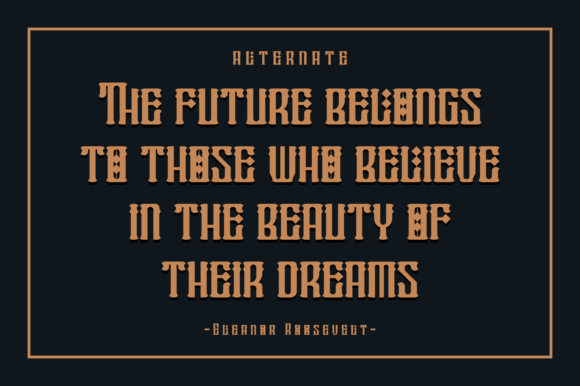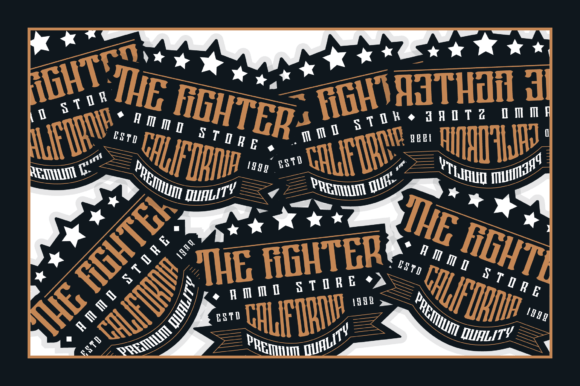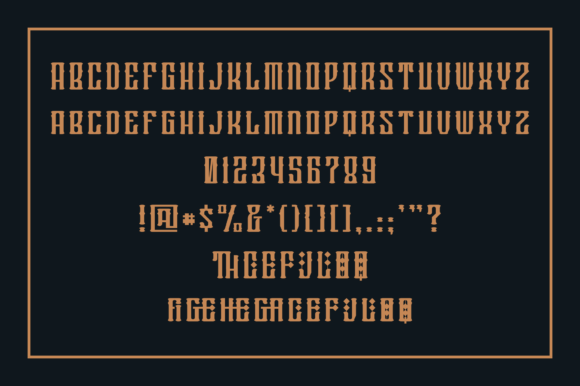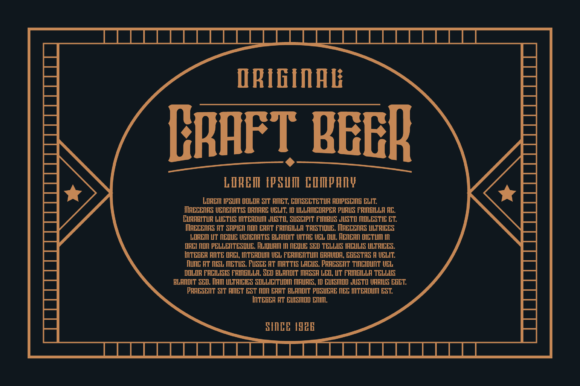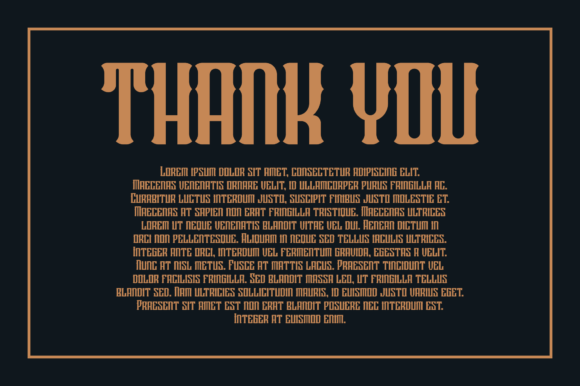
Introduction to Ransack Font
Have you ever been in the middle of a creative project, pouring your heart and soul into it, only to realize that the perfect font is missing to bring it all together? That’s where the Ransack Font comes in – a game-changing addition to any designer’s library.
With its intricate blackletter design and high-quality details, the Ransack Font has the power to elevate any project from ordinary to extraordinary. Whether you’re working on a design for a transparent background or a logo with a bold statement, this font is sure to be a valuable asset.
Key Features of Ransack Font
- Ransack Font is a high-quality design resource ideal for creative projects, offering a unique and stylish look.
- It features a transparent background, making it perfect for use on various design elements and backgrounds.
- The font size is scalable, allowing designers to adjust the size to suit their creative project’s needs.
- Ransack Font is designed with a high resolution, ensuring that the font remains crisp and clear even at larger sizes.
- This font is a valuable addition to any designer’s toolkit, offering a versatile and stylish option for a wide range of creative projects.
Honest Review: Ransack Font
As a designer, I’m always on the lookout for unique and high-quality fonts to enhance my creative projects. The Ransack Font caught my eye with its bold and quirky aesthetic, and I was excited to give it a try.
- ✨ Unique design style: The Ransack Font has a distinct, hand-drawn feel that sets it apart from more traditional fonts.
- ✨ High quality: The font is well-crafted and has a clear, crisp appearance, even at larger font sizes.
- ⚠️ Limited font variations: The Ransack Font only comes in a few different weights, which may limit its versatility in certain design projects.
Ransack Font
The Ransack Font is perfect for a variety of creative projects, including:
- Poster design